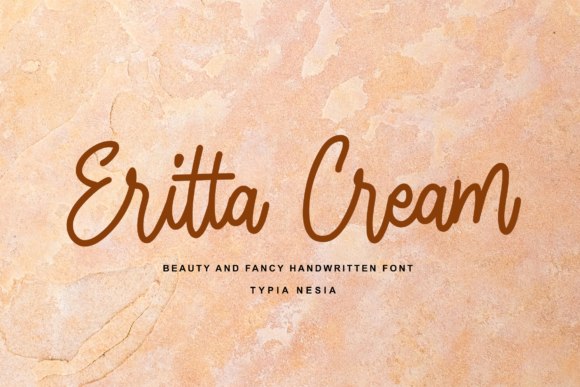
Discover the Sweet Delight of Eritta Cream Font
Have you ever been stuck in a design rut, struggling to find the perfect font to bring your creative vision to life? I know I have. But then, I stumbled upon Eritta Cream Font, and everything changed. This beautiful script font is more than just a pretty face – it’s a game-changer for designers who crave a touch of elegance and sophistication in their work.
Eritta Cream Font is a radiant and sweet script font that boasts stunning alternates, gorgeous glyphs, and smooth lines. Its beautiful and well-balanced characters make it a versatile choice for a wide range of designs, from wedding invitations to branding materials.
Whether you’re a seasoned designer or just starting out, Eritta Cream Font is a valuable addition to your toolkit. Its unique blend of style and functionality makes it an essential resource for anyone looking to add a touch of whimsy and personality to their work.
Eritta Cream Font Key Features
- Font Family: Eritta Cream
- Unique Characteristics: Elegant and creamy texture, perfect for creating a luxurious and vintage feel in designs
- Font Style: Script, Handwritten, Calligraphy
Eritta Cream Font Review
I recently had the chance to work with the Eritta Cream Font, and I must say it’s a unique and charming addition to any design project. ✨ The subtle texture and creamy feel of the font make it perfect for creating a warm and inviting atmosphere.
- The Eritta Cream Font is ideal for use in invitations, greeting cards, or any other material that requires a touch of elegance and sophistication.
- The font is highly customizable, allowing designers to adjust the texture and color to fit their specific needs.
- The Eritta Cream Font is also a great option for creating vintage or distressed effects.
However, I did encounter a few limitations with this font. ⚠️ The font may not be the best choice for use in large blocks of text, as the texture can make it difficult to read.
Overall, I would recommend the Eritta Cream Font to designers who are looking for a unique and eye-catching font for their projects. While it may have some limitations, the benefits far outweigh the drawbacks.
Tips for Getting the Most Out of Eritta Cream Font
To get the most out of Eritta Cream Font, use it in combination with bold or italic text to create visual interest.
Experiment with different font sizes and line spacing to create a visually appealing design.
Eritta Cream Font is ideal for use in: